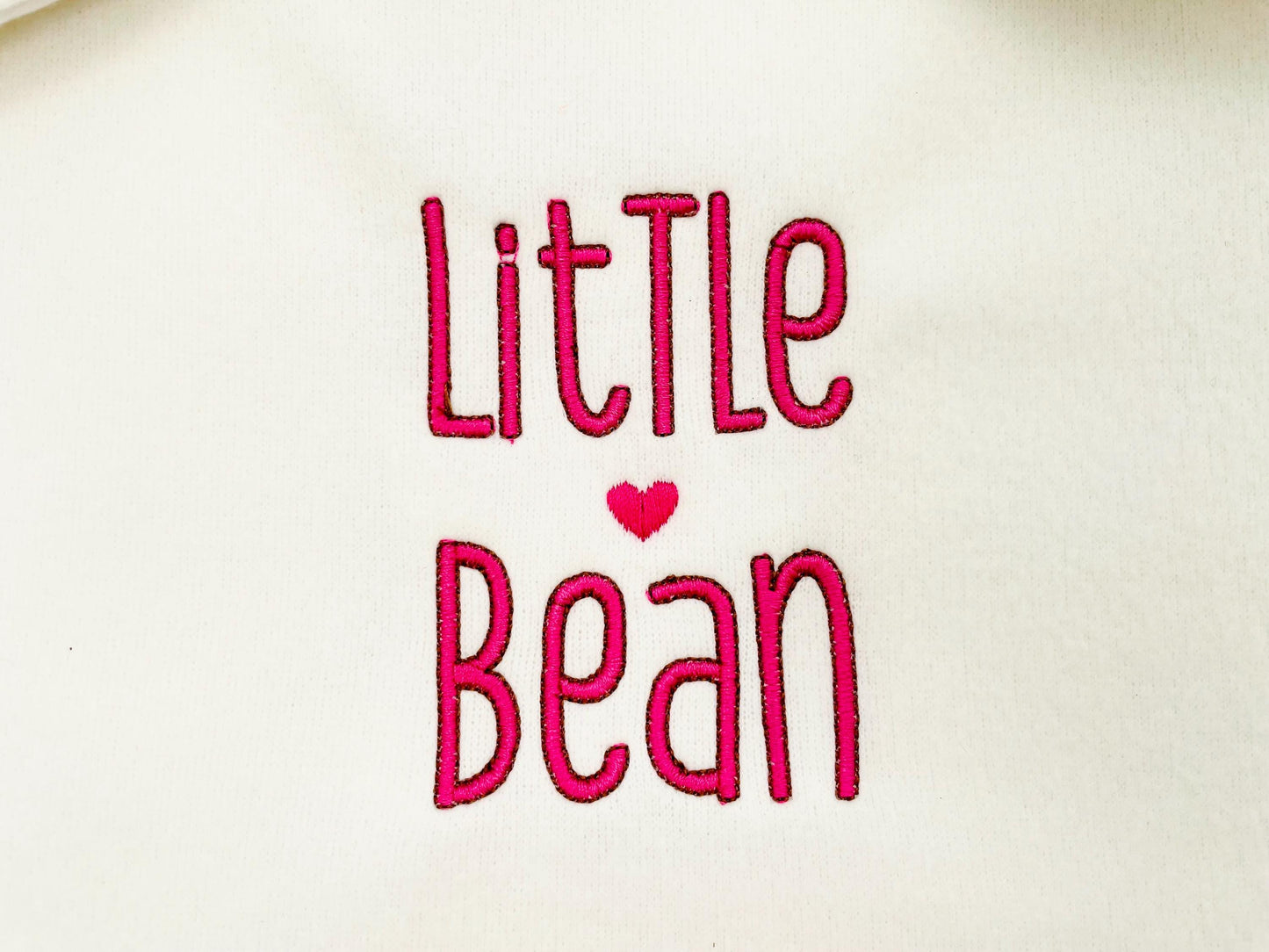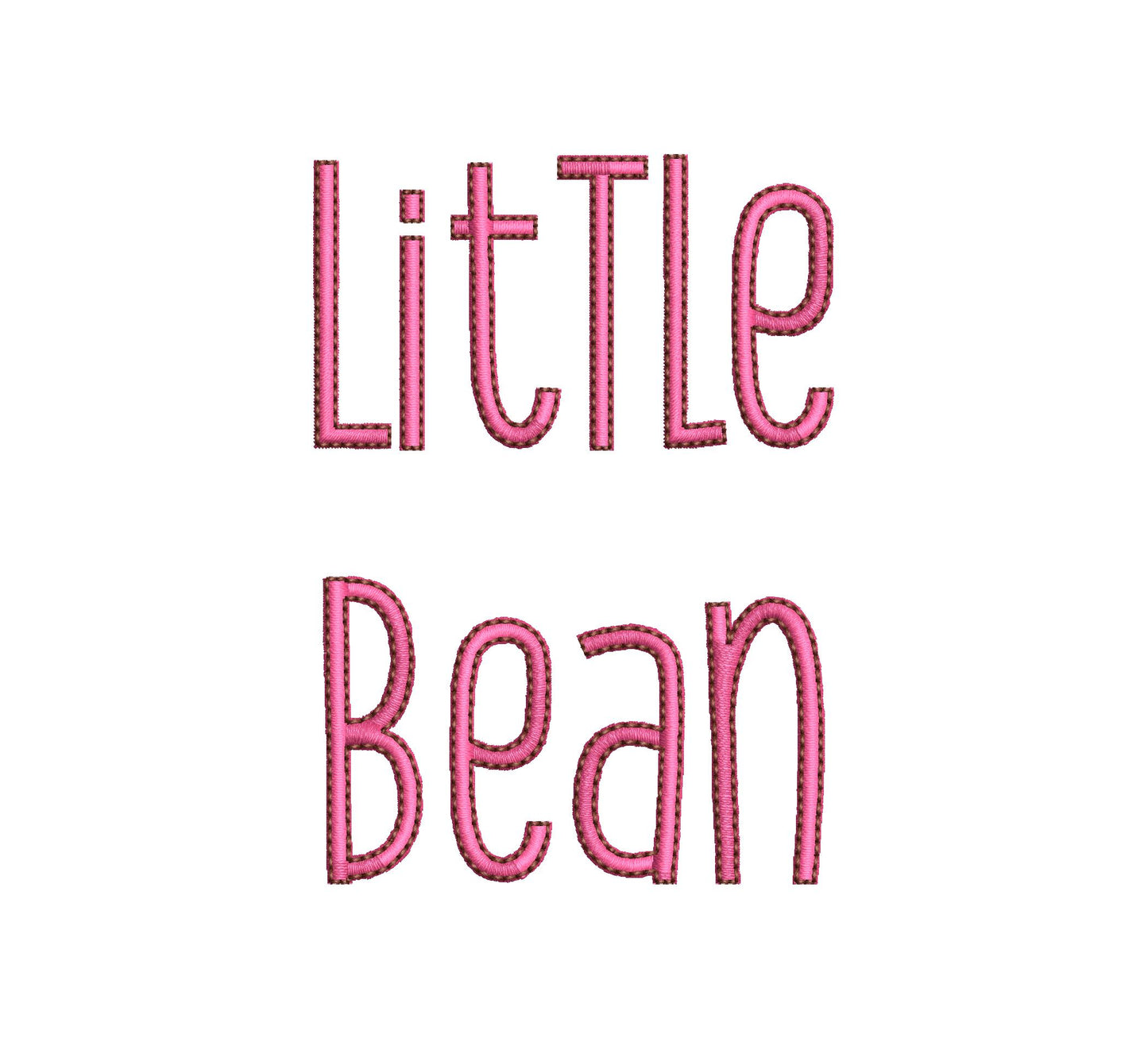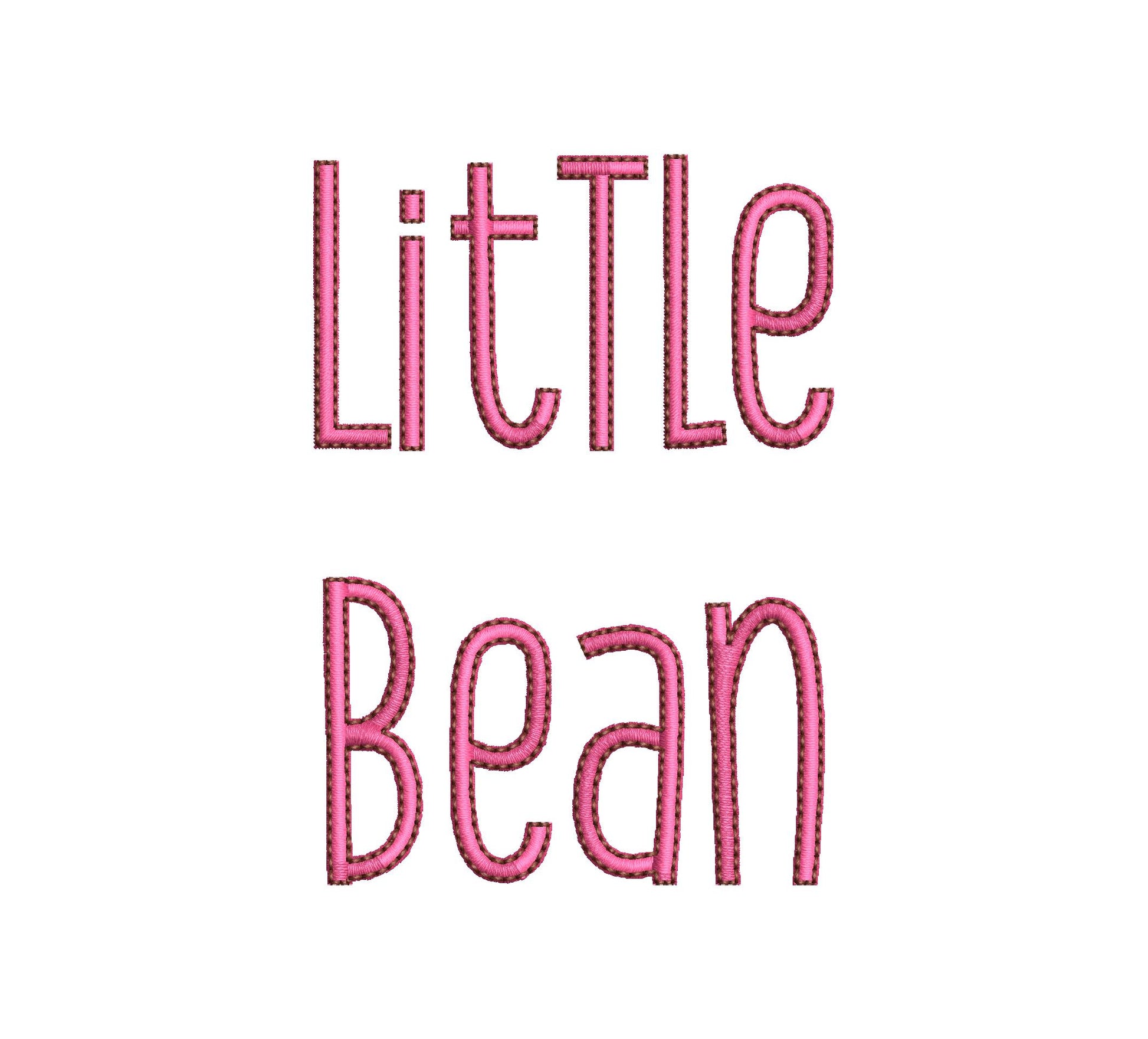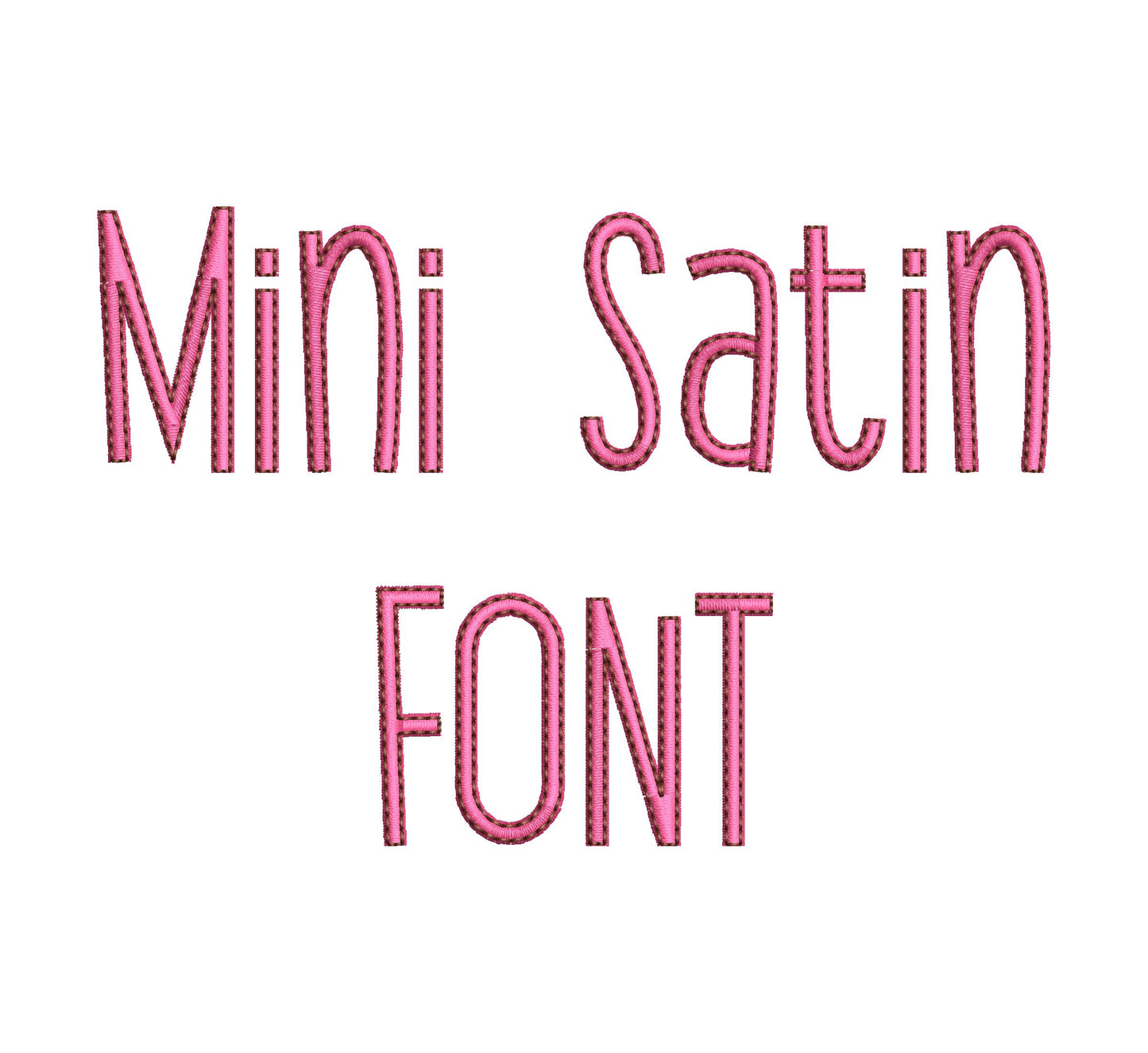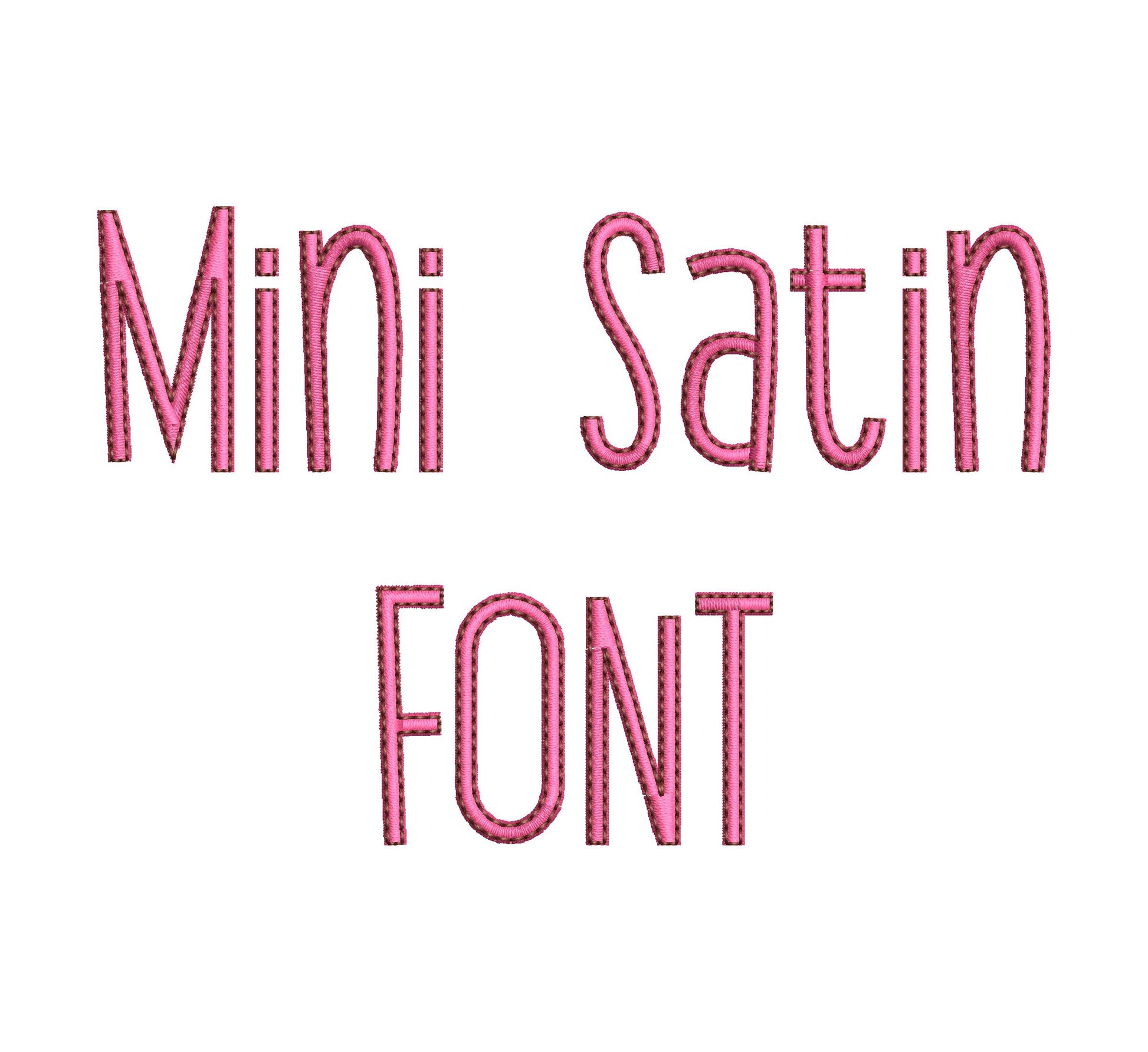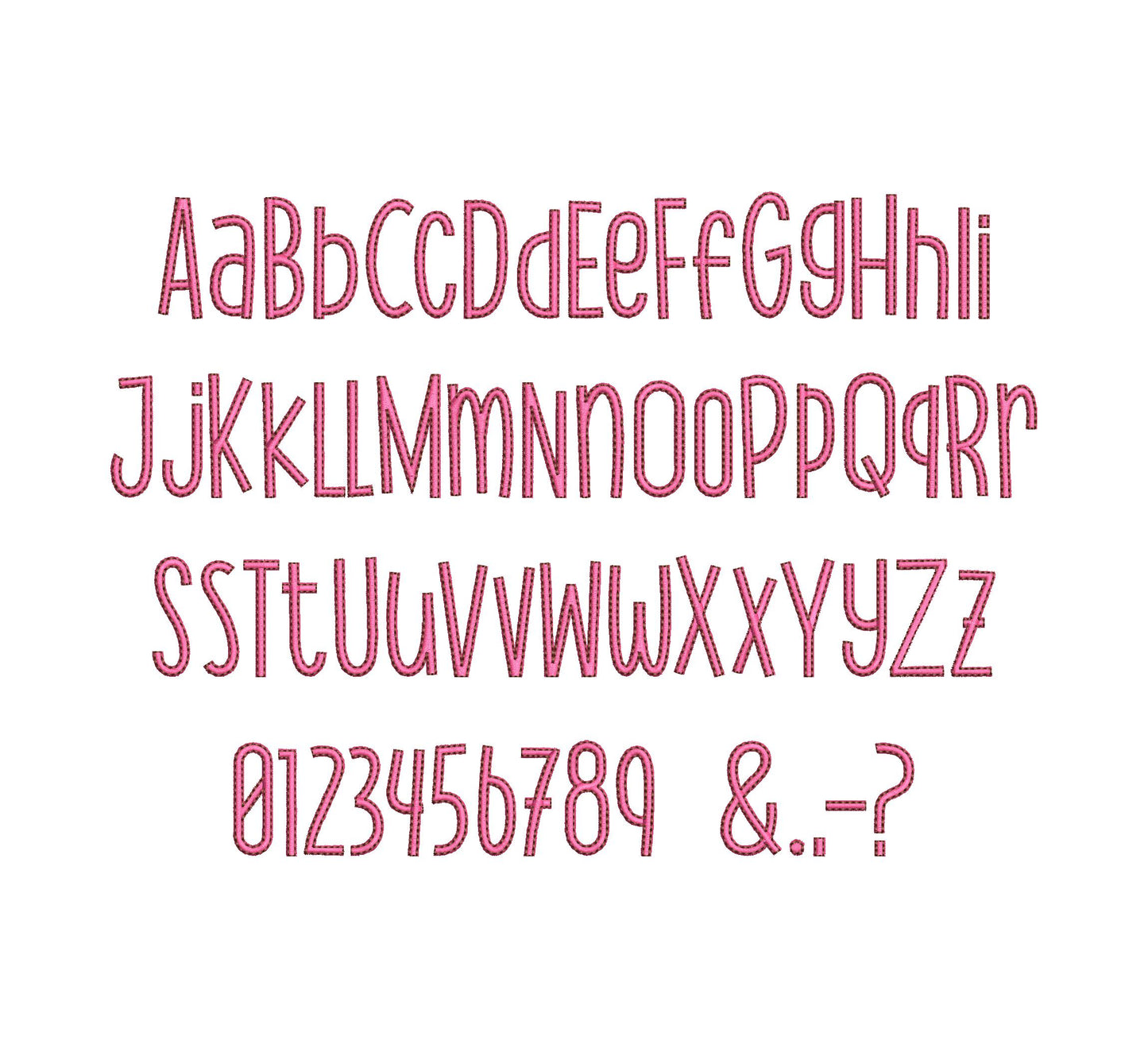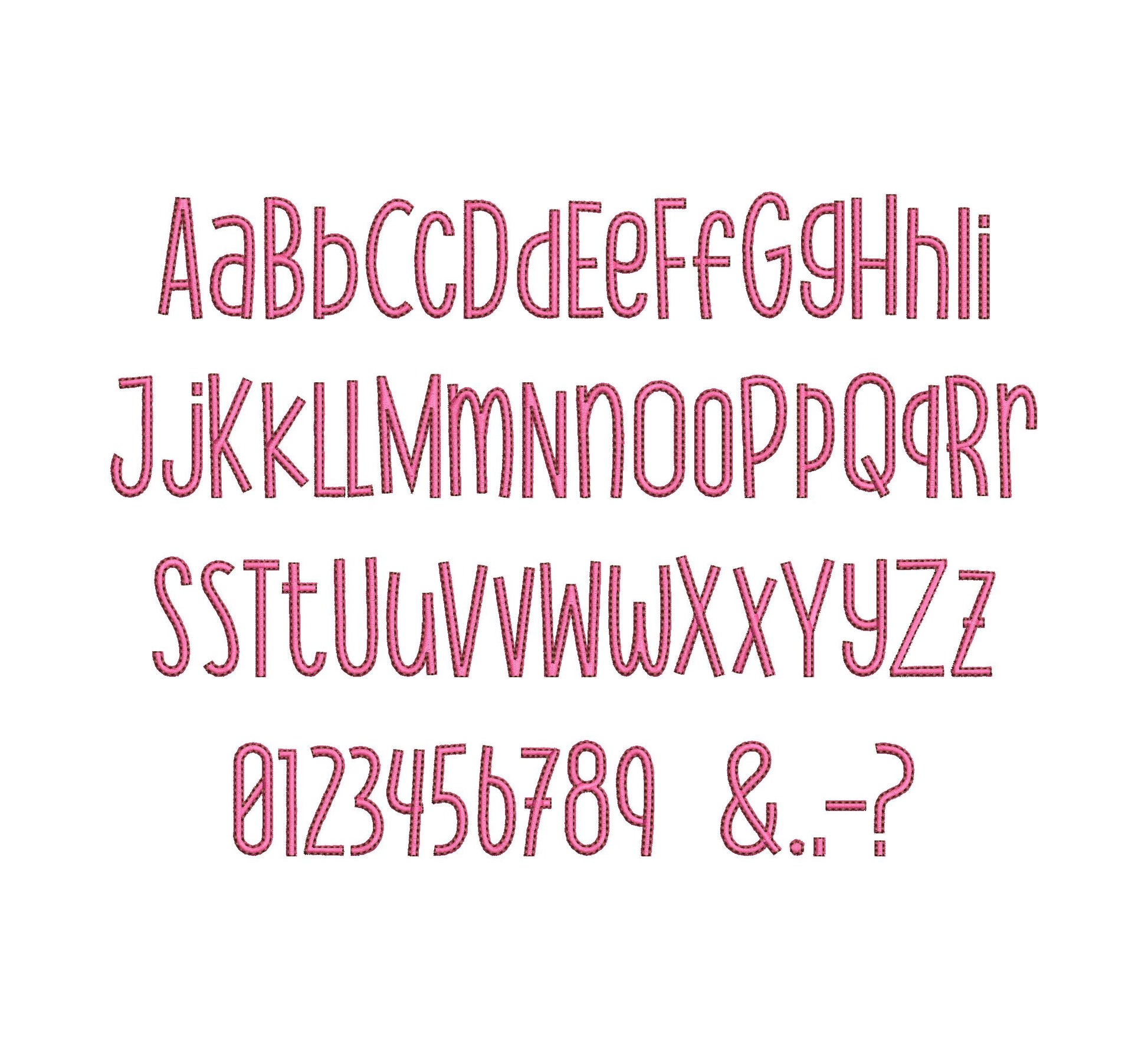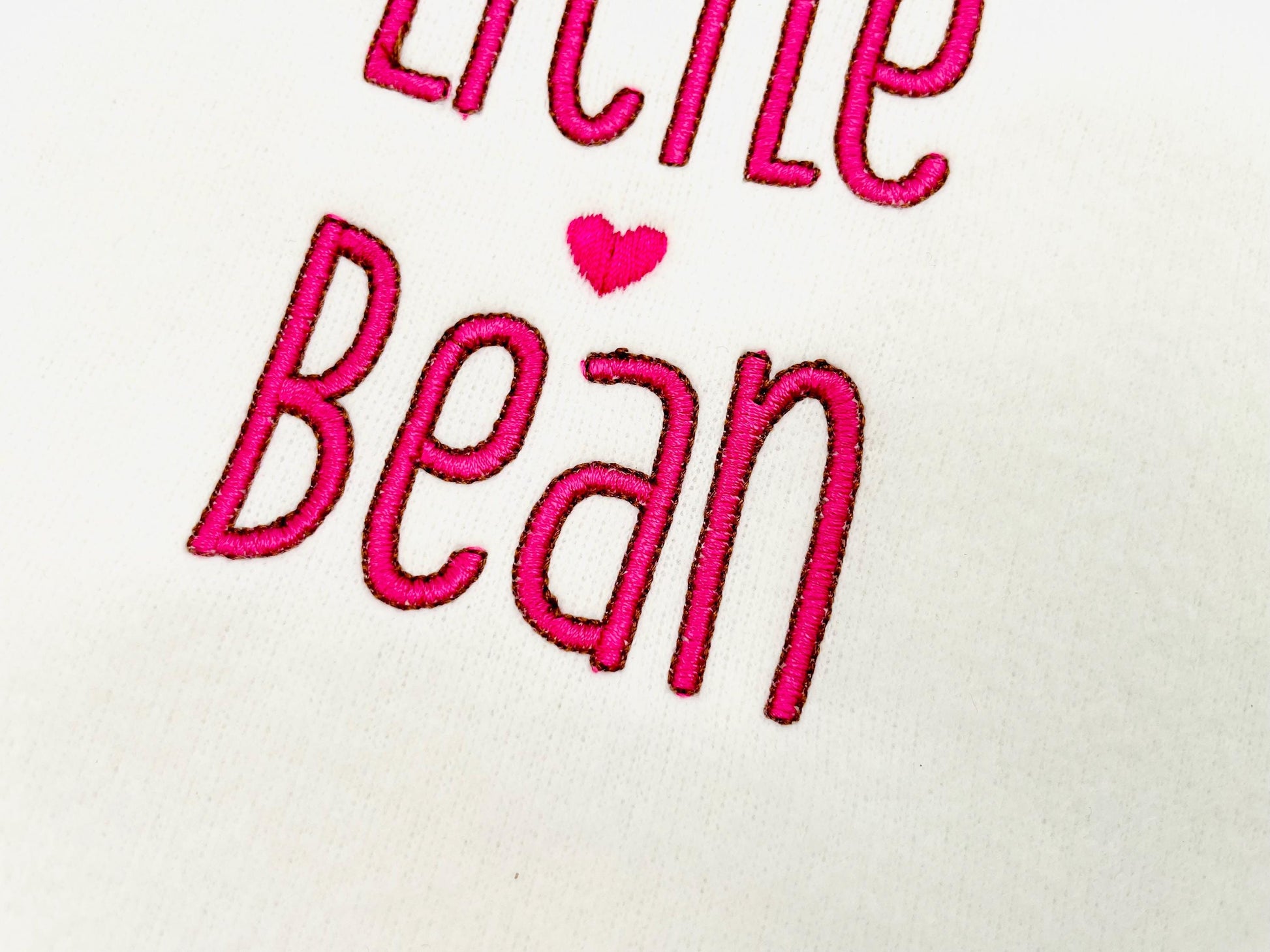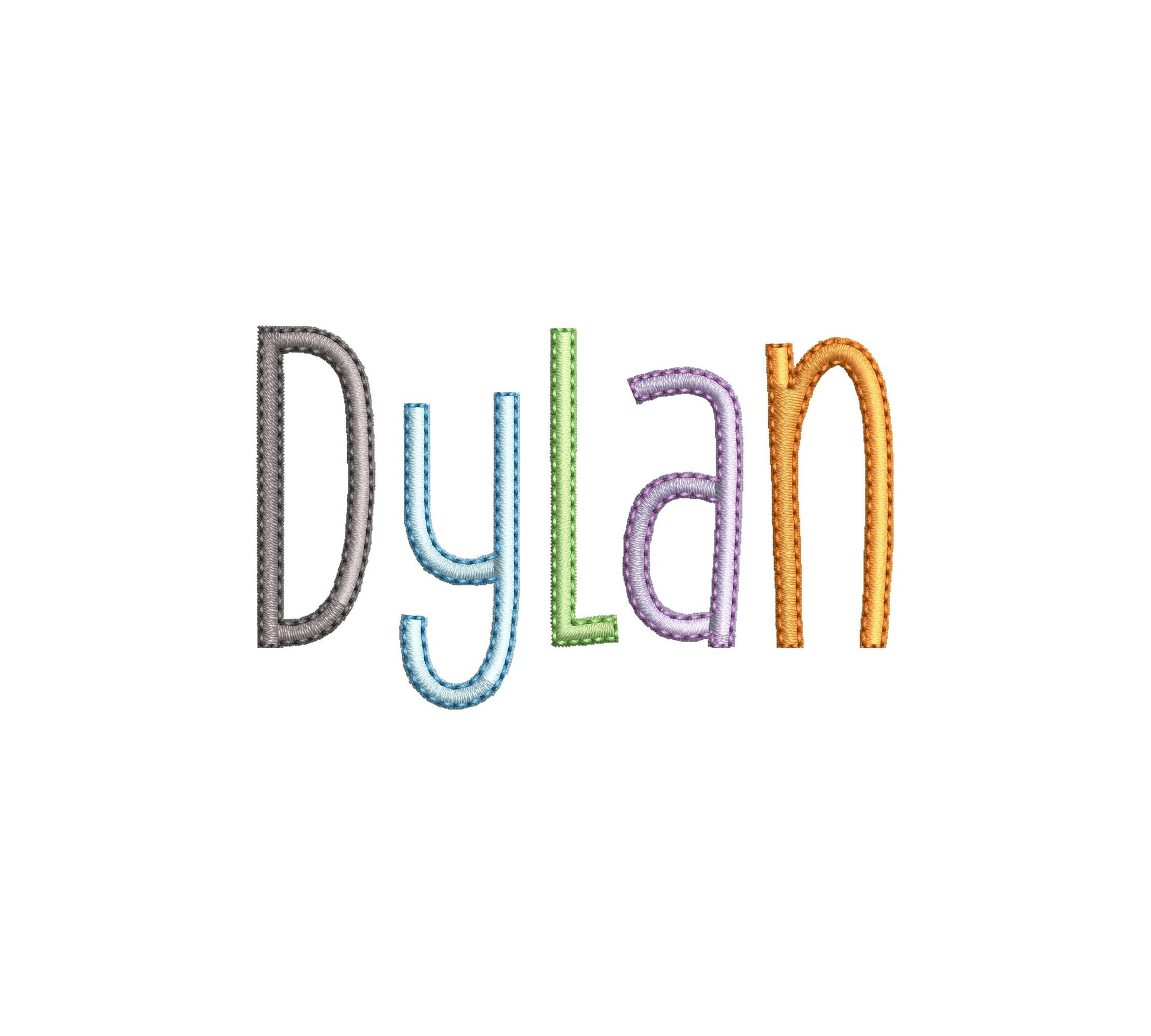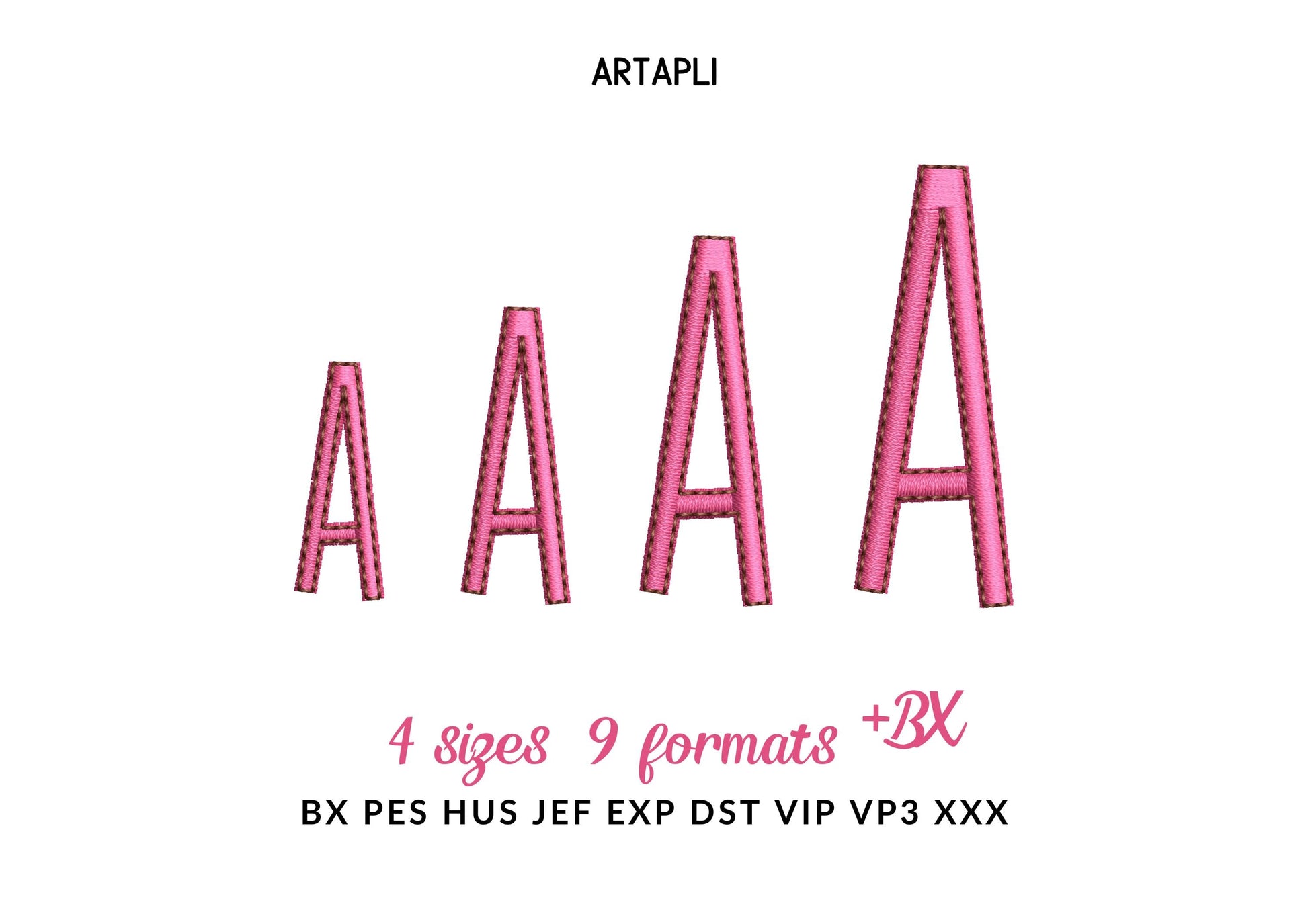
Satin Stitch and Outline Thin Tall Mini Font
Uppercase and lowercase letters, numbers 0 to 9 and punctuation, in four mini sizes: 1.1, 1.5, 1.8 and 2 inches.
- Thin tall satin and outline mini font
- Uppercase and lowercase letters, numbers 0-9, punctuation
- 4 sizes, 1.1 to 2 in